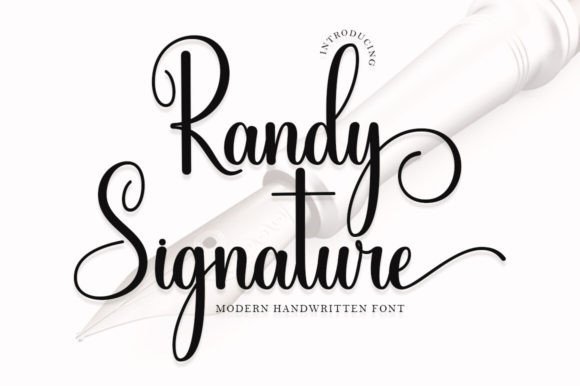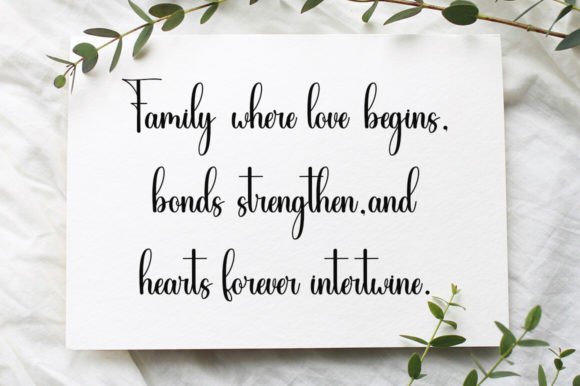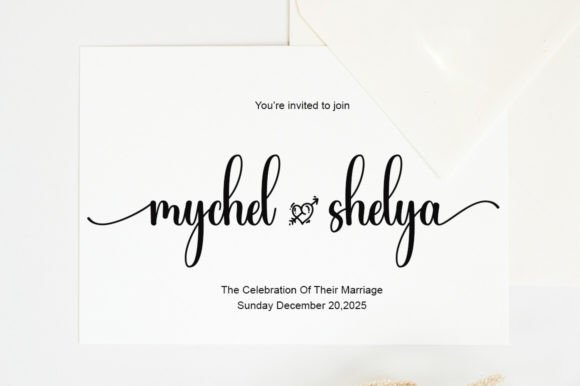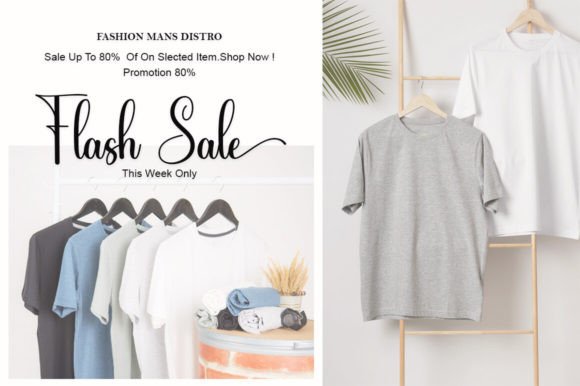
Randy Signature Font
About the Randy Signature Font
Let us introduce you to Randy Signature Font, where timeless design meets modern craftsmanship. Randy Signature is a romantic and sweet handwritten typeface with characters that dance along the baseline. It will add a luxury spark to any design project that you wish to create! This font is PUA encoded which means you can access all of the amazing glyphs and ligatures with ease!
Randy Signature’s elegant and romantic style makes it ideal for projects requiring a touch of luxury and sophistication. It excels in headlines, short text blocks on invitations or cards, and branding applications where a handwritten feel is desired, such as logos for boutiques or artisanal products. Avoid using it for large amounts of body copy or UI elements; its delicate nature isn’t suited to long reads or functional interfaces.
Consider pairing Randy Signature with a clean sans-serif like Montserrat for a modern contrast, or a classic serif such as Garamond for a more timeless feel. A simple geometric sans-serif would also create a visually appealing balance. These pairings allow the script’s delicate charm to shine without overwhelming the overall design.
The font’s core personality is undeniably romantic and graceful, conveying a sense of refined femininity and warmth. This makes it a perfect choice for brands focused on beauty, fashion, or handcrafted goods.